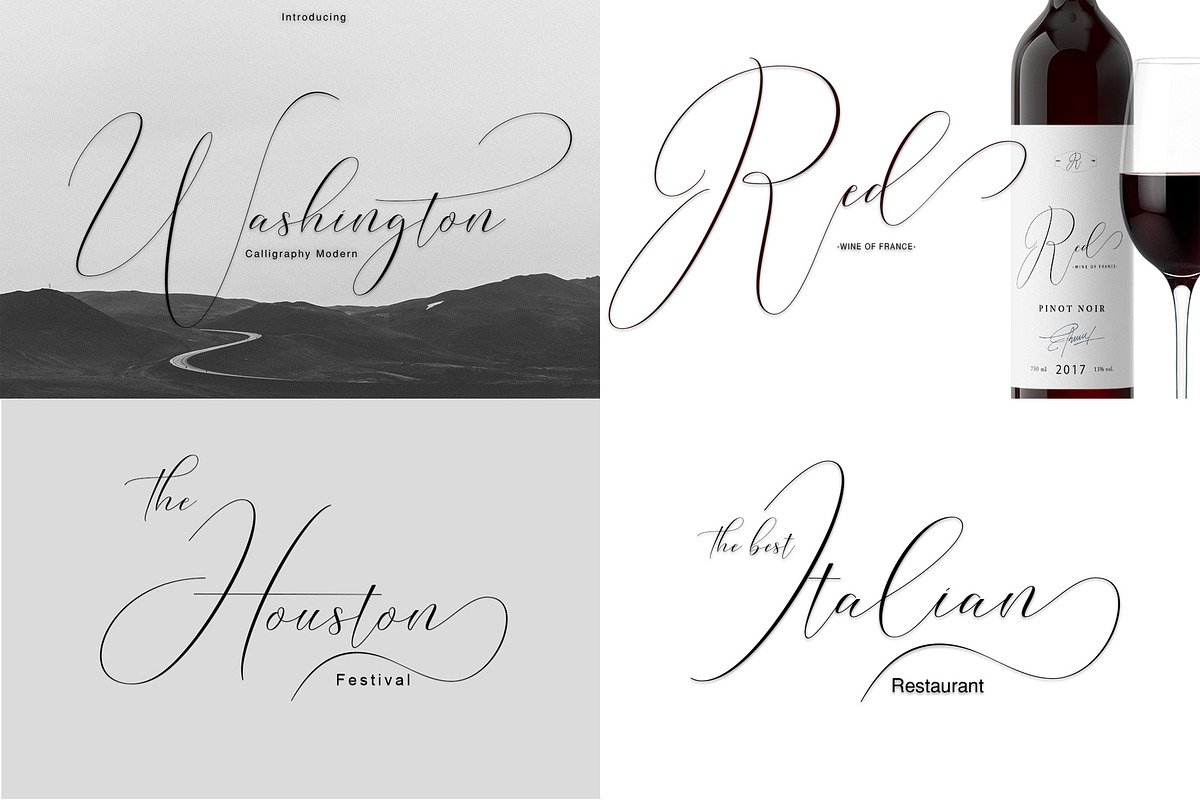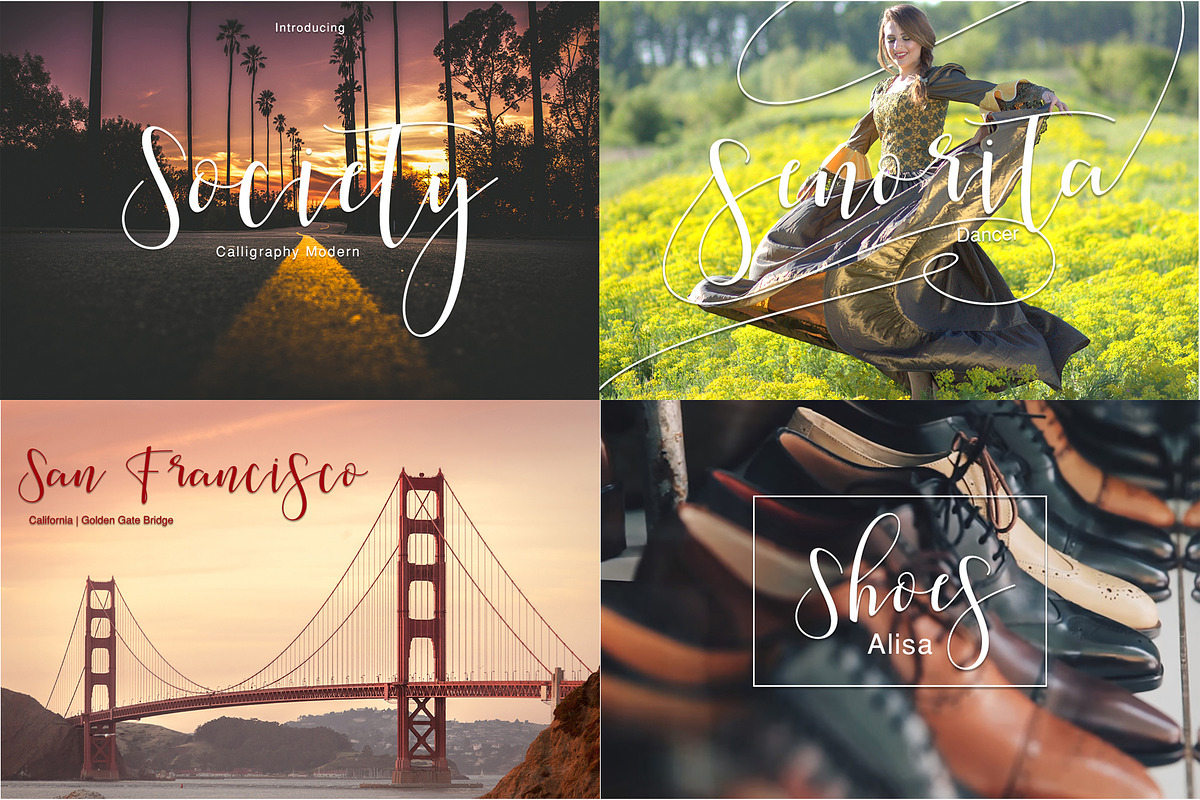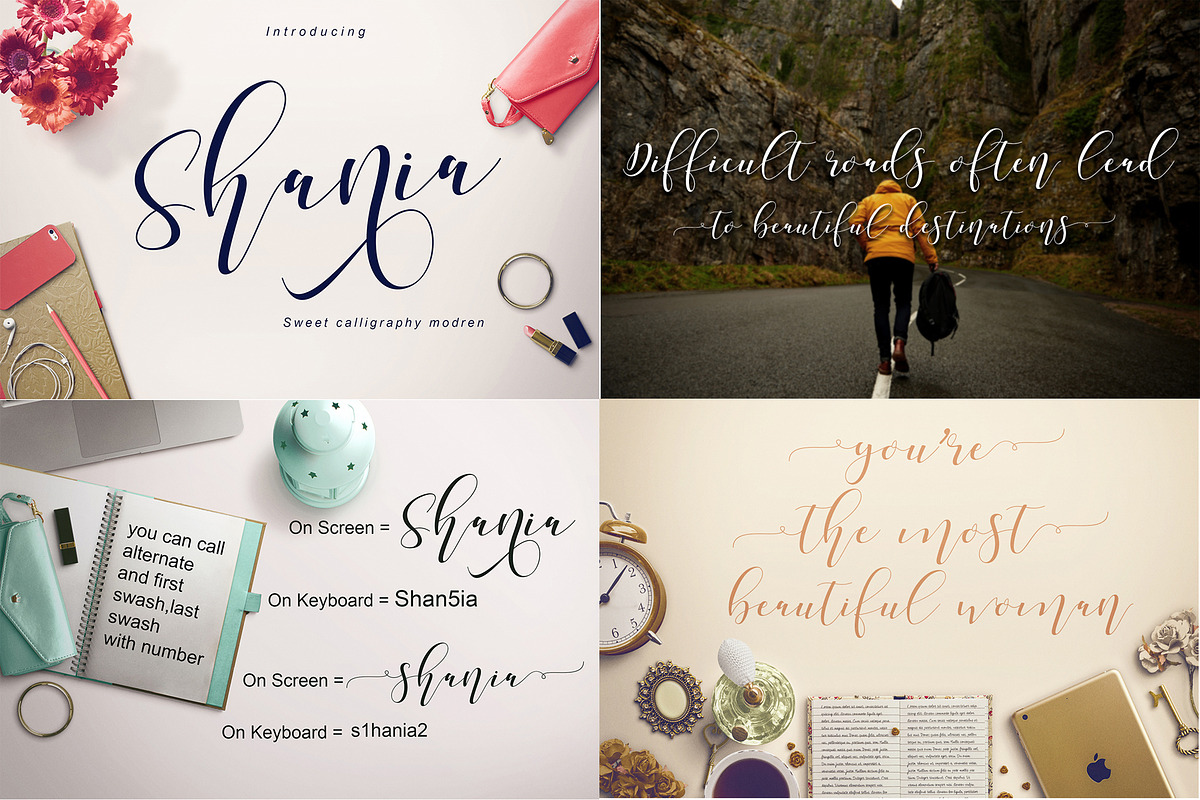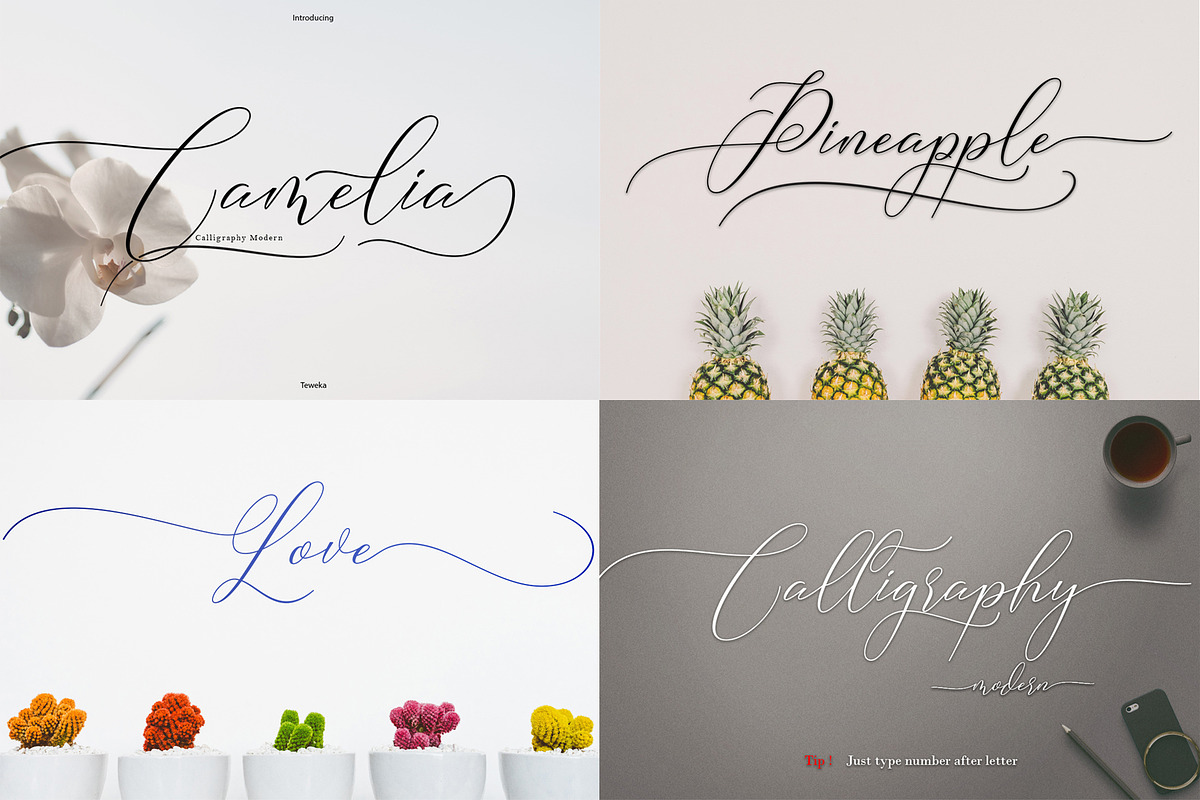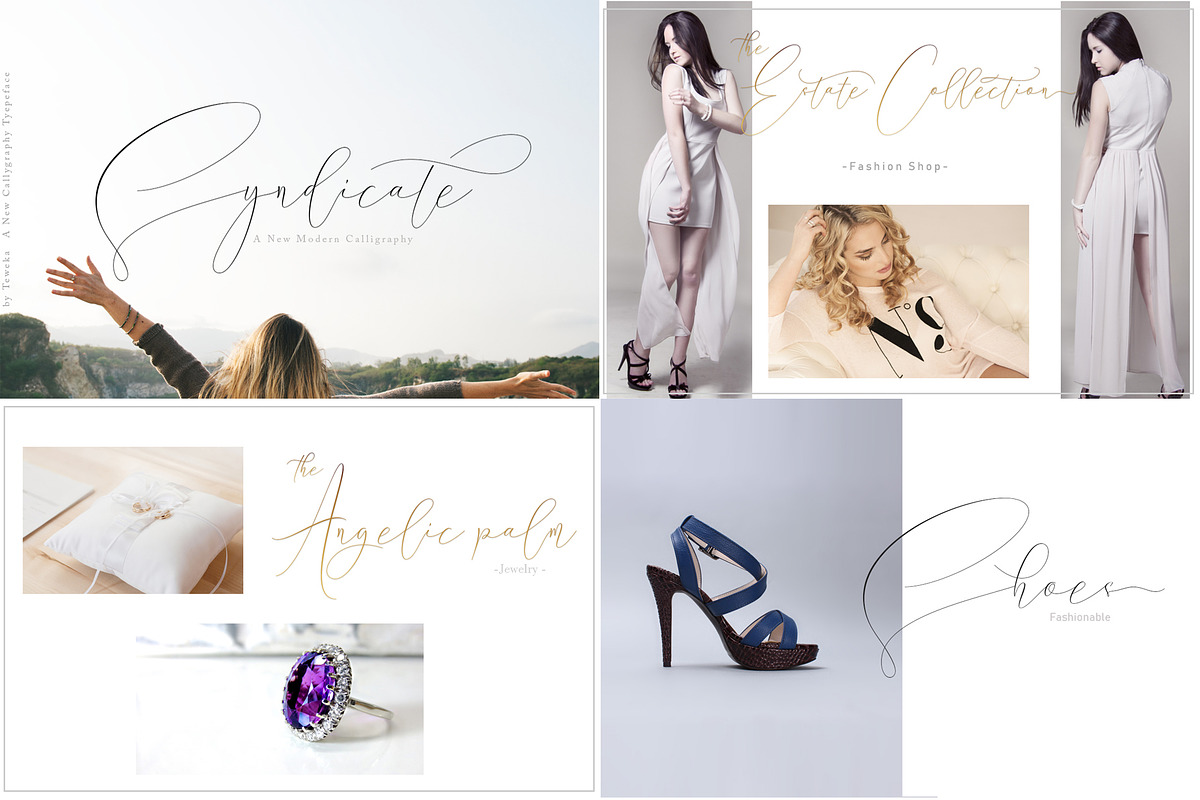
Best Seller Font Bundles
Unique Modern Font Bundles for all your project needs! This bundle includes five top seller modern and trendy sellers. in Font Washington and shania there is a magizine bonus
This Bundles Include :
Washinton Calligraphy Modern
Shania Sweet Calligraphy
Society Calligraphy Modern
Syndicate A New Callligraphy Modern
Camelia Calligraphy Modern
- This bundle includes five top seller modern and trendy sellers.
Why Best Seller Font Bundles is worth a look